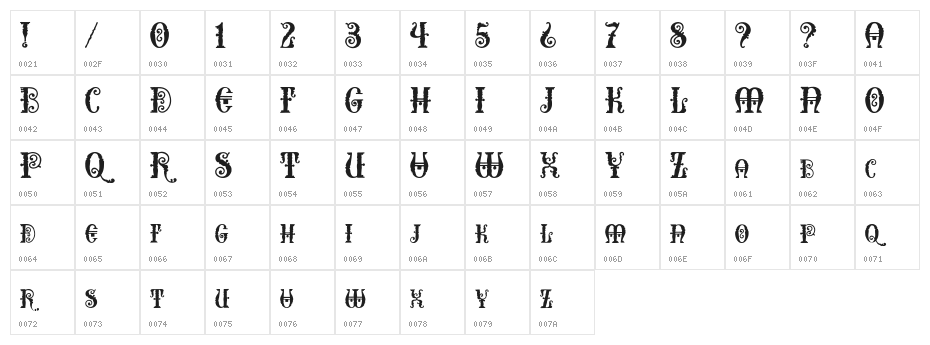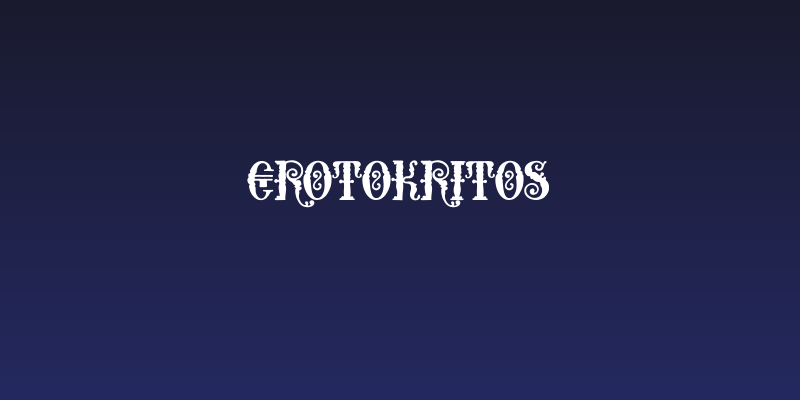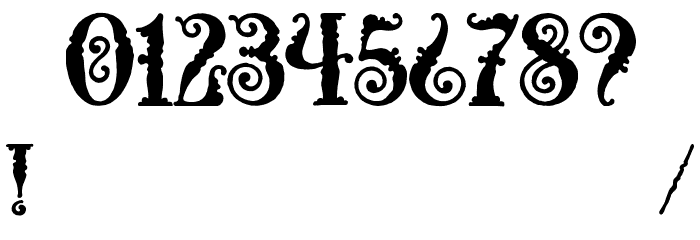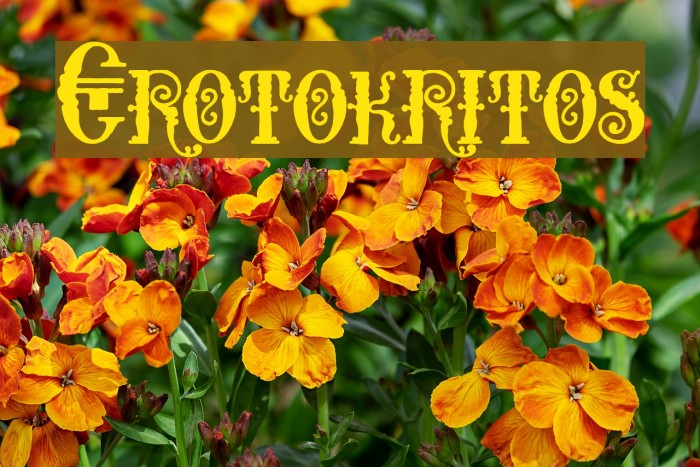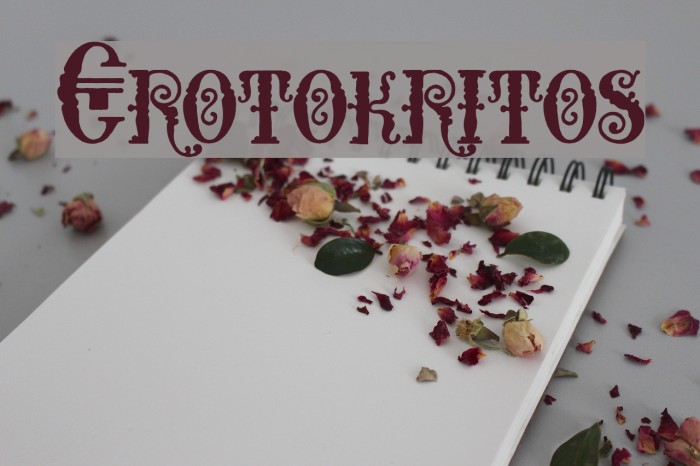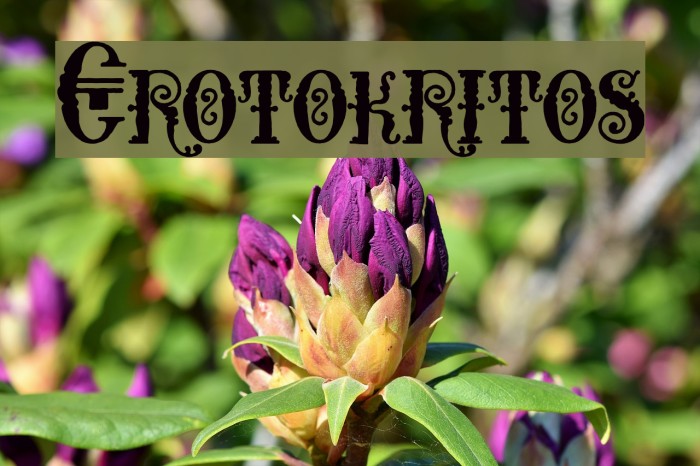
Erotokritos Font
Erotokritos Description
This font features an elaborate and decorative style with intricate swirls and embellishments integrated into each character. The uppercase and lowercase letters maintain a consistent ornate design, with flourishes that add a sense of elegance and complexity. The numbers follow the same decorative theme, making them stand out with their unique and artistic flair. The special characters are equally adorned, ensuring a cohesive look throughout the typeface. This font is ideal for projects that require a touch of sophistication and artistic expression.
| Use Case | Logos, Headlines, Invitations |
| Proposed Projects | Ideal for wedding invitations, luxury branding, artistic posters, and decorative signage. |